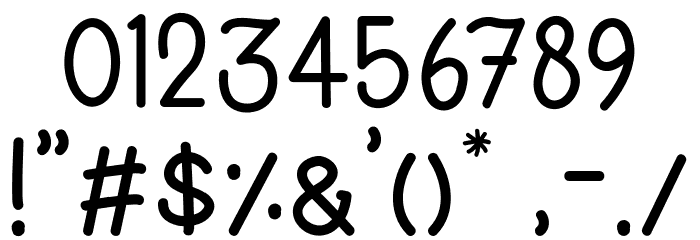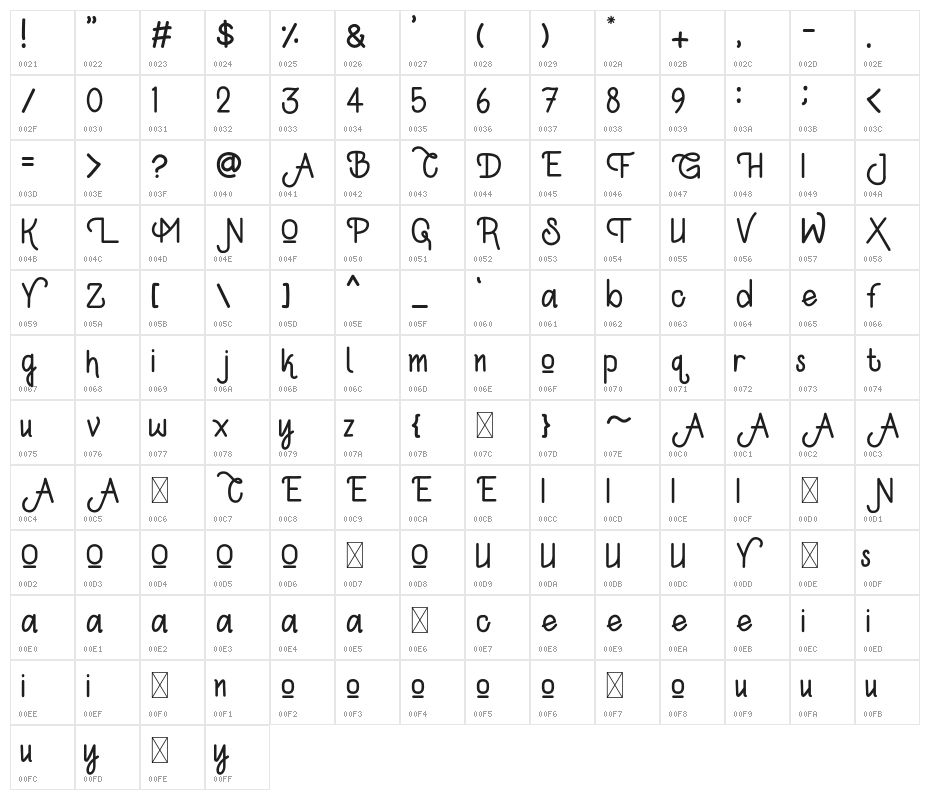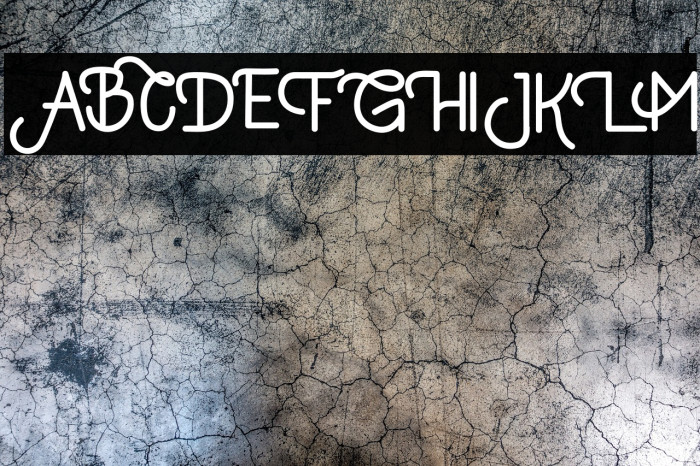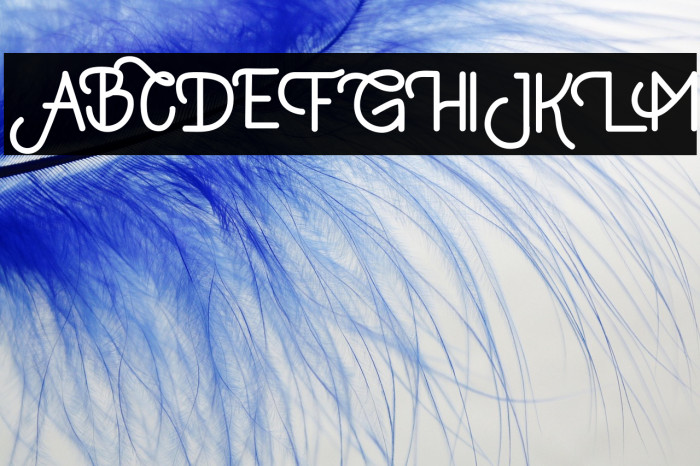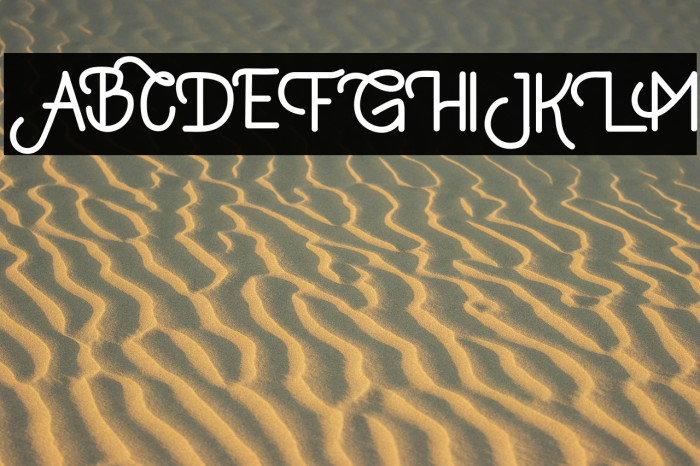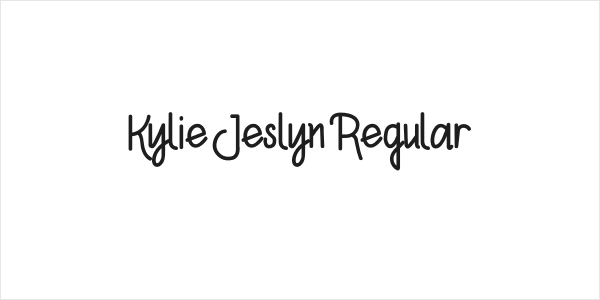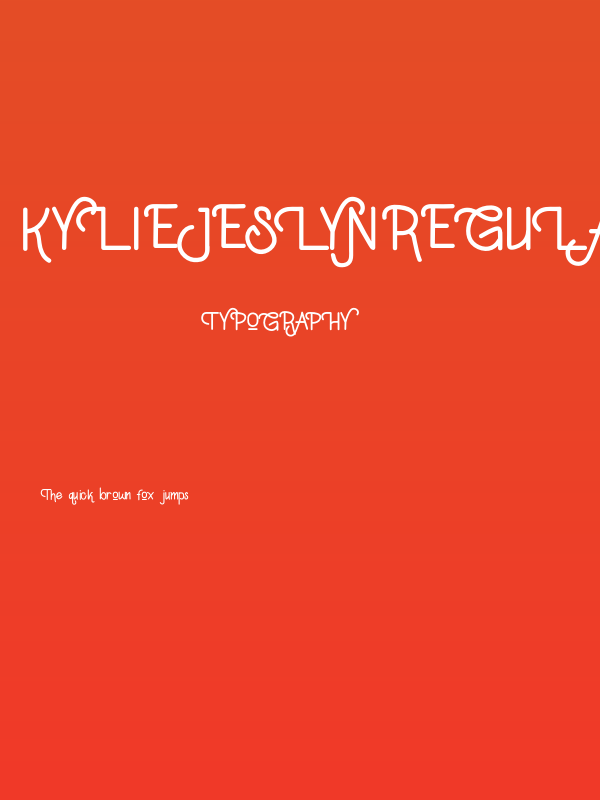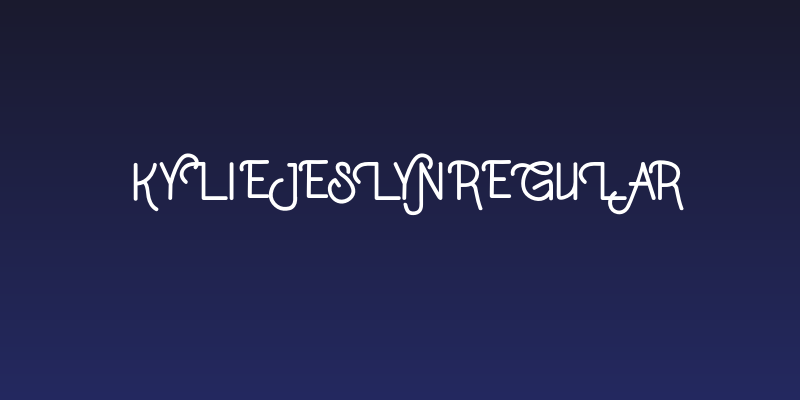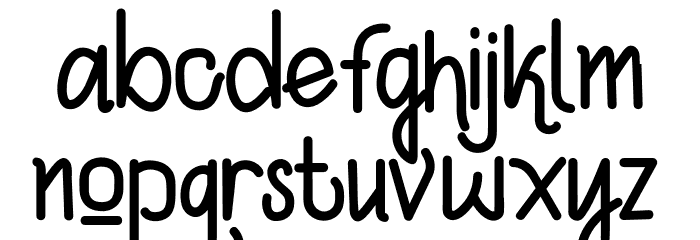
KylieJeslynRegular Font
KylieJeslynRegular Description
This font features a playful and whimsical style with a handwritten appearance. The characters are rounded and slightly irregular, giving it a casual and friendly feel. The uppercase letters are bold and prominent, while the lowercase letters maintain a consistent flow with subtle loops and curves. The numbers and special characters are designed to match the overall playful aesthetic, making it suitable for creative and informal projects. The font's unique style is characterized by its fluid strokes and lively personality, making it stand out in any design.
Overall StylePlayful
Use CaseHeadlines, Logos, Invitations
Proposed ProjectsIdeal for children's books, greeting cards, playful branding, and creative invitations.